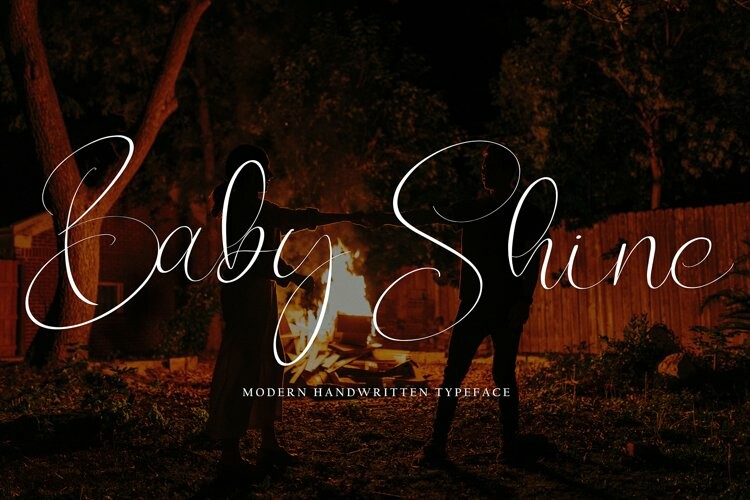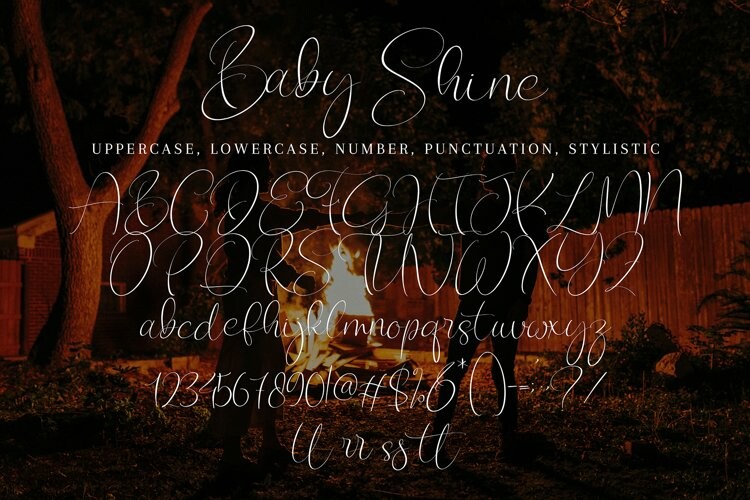
Baby Shine Font
Baby Shine FontBaby Shine with new style, this font will perfect for many different project ex: quotes, logo, blog header, poster, banding, letter, invitation, stationery, etc…